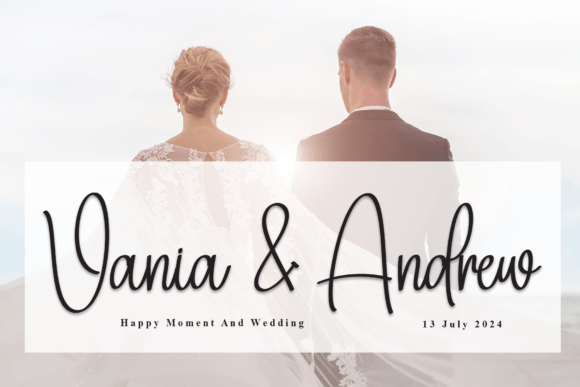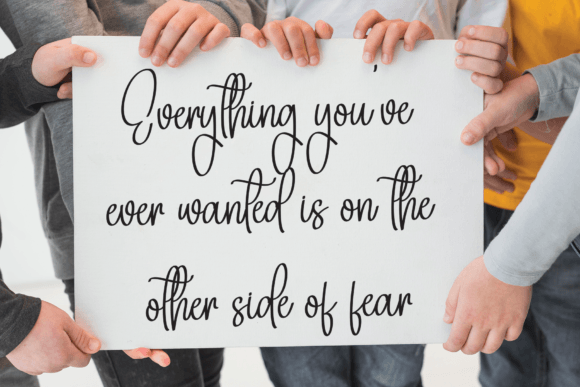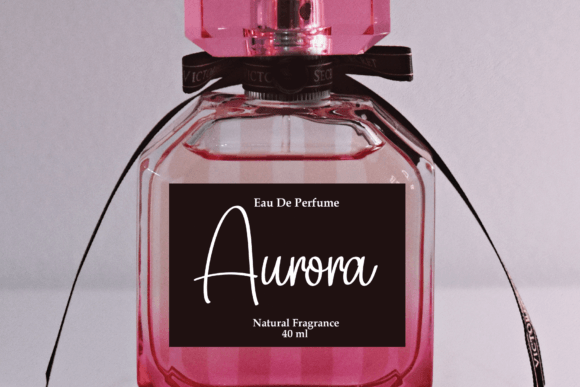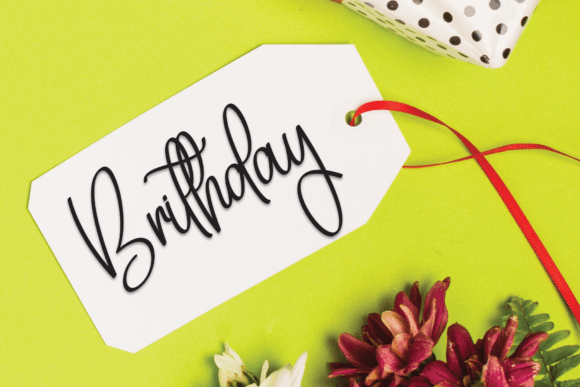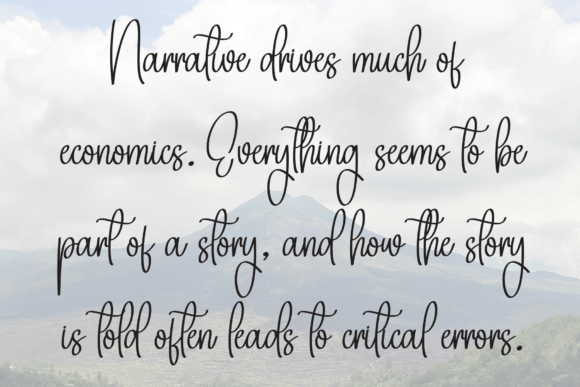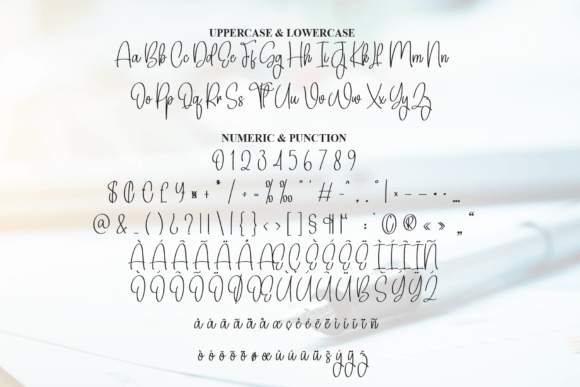
The Elusive Perfect Font: My Encounter with Birmingham Signature
I’ll never forget the time I was working on a branding project for a luxury wedding planner. The client wanted a font that exuded elegance and sophistication, something that would make their invitations and marketing materials stand out. I spent hours scouring the internet, trying out font after font, but nothing seemed quite right. That was until I stumbled upon Birmingham Signature. ✨
This stylish and elegant signature font caught my eye with its smooth, flowing lines and natural connections between letters. It was love at first sight! I knew I had found the perfect font for my client’s project, and I couldn’t wait to dive in and explore its features.
An Honest Review of Birmingham Signature
- ✨ Elegant and sophisticated design that’s perfect for luxury brands
- ✅ Smooth, flowing lines that mimic handwritten signatures
- 🎉 Natural connections between letters for a classy feel
- 🤩 Highly versatile and suitable for a range of design projects
While Birmingham Signature is an excellent font, it’s not without its quirks. ⚠️ Some users may find that the font can be a bit finicky when it comes to kerning and spacing, particularly when using it at smaller sizes. Additionally, the font may not be suitable for body text or lengthy paragraphs, as it’s best used for headlines and titles. 🤔
- Experiment with OpenType features, such as glyphs and stylistic alternates, to add visual interest to your design
The Story Behind Birmingham Signature
Birmingham Signature was designed with the intention of creating a font that would evoke the elegance and sophistication of handwritten signatures. The designer, inspired by the beautiful calligraphy of the past, sought to create a font that would be both stylish and timeless. 💫
The result is a font that’s perfect for luxury brands, wedding planners, and anyone looking to add a touch of class to their design projects.
Q: What type of projects is Birmingham Signature best suited for?
A: Birmingham Signature is perfect for luxury brands, wedding planners, and anyone looking to add a touch of elegance to their design projects, such as logos, invitations, and marketing materials.
Q: Can I use Birmingham Signature for body text?
A: While Birmingham Signature is an excellent font, it’s best used for headlines and titles. It’s not recommended for body text or lengthy paragraphs, as it may be difficult to read.
Q: Does Birmingham Signature support OpenType features?
A: Yes, Birmingham Signature supports OpenType features, including glyphs, stylistic alternates, and ligatures, which can be accessed in compatible design software.
Q: Is Birmingham Signature suitable for digital use?
A: Yes, Birmingham Signature is suitable for both print and digital use, making it a versatile font for a range of design projects.